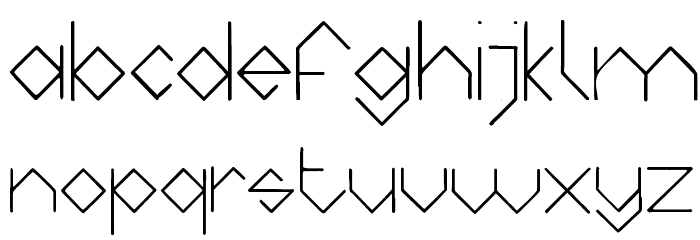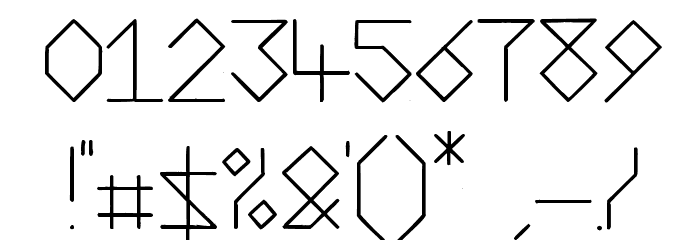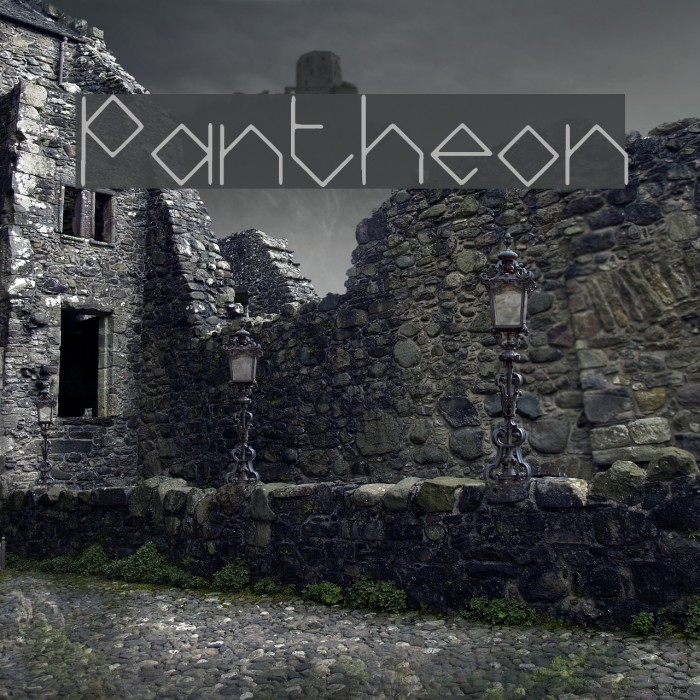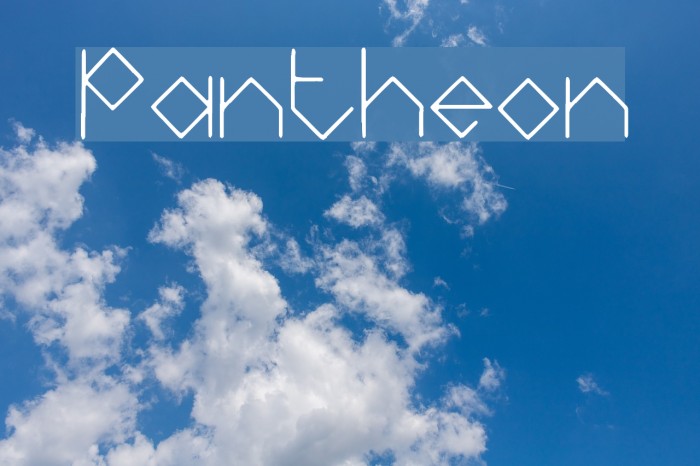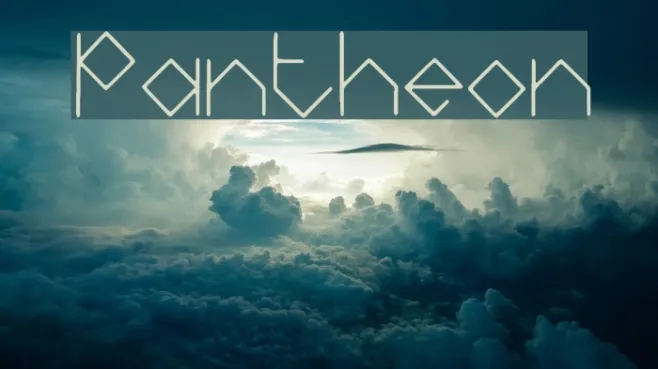
Pantheon Font
This font features a geometric and angular design, characterized by its sharp edges and linear forms. The uppercase letters are distinct with a futuristic and minimalist aesthetic, while the lowercase letters maintain a consistent style with slight variations in curvature. The numerals and special characters follow the same angular theme, providing a cohesive look across all glyphs. The font's unique structure makes it stand out, with each character crafted to maintain readability while offering a modern twist. Its clean lines and uniform stroke width contribute to a balanced and harmonious appearance, making it suitable for various design applications.
A geometric, angular font with a futuristic and minimalist design.
- Proposed Projects: Ideal for modern branding, tech-related projects, futuristic posters, and digital interfaces.